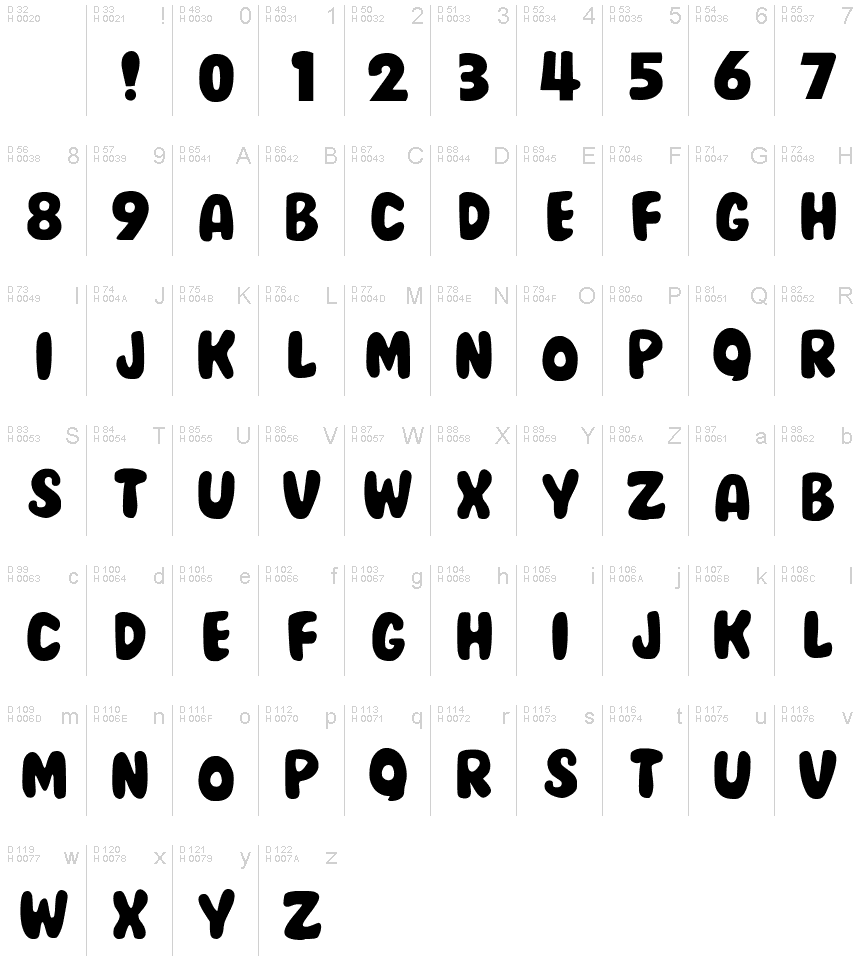
Joykids Regular
Joykids is a bold, cartoon-style display font created by Novita Maria. Perfect for projects requiring a fun and whimsical feel, Joykids is an ideal choice for children's books, animated films, and playful logos.